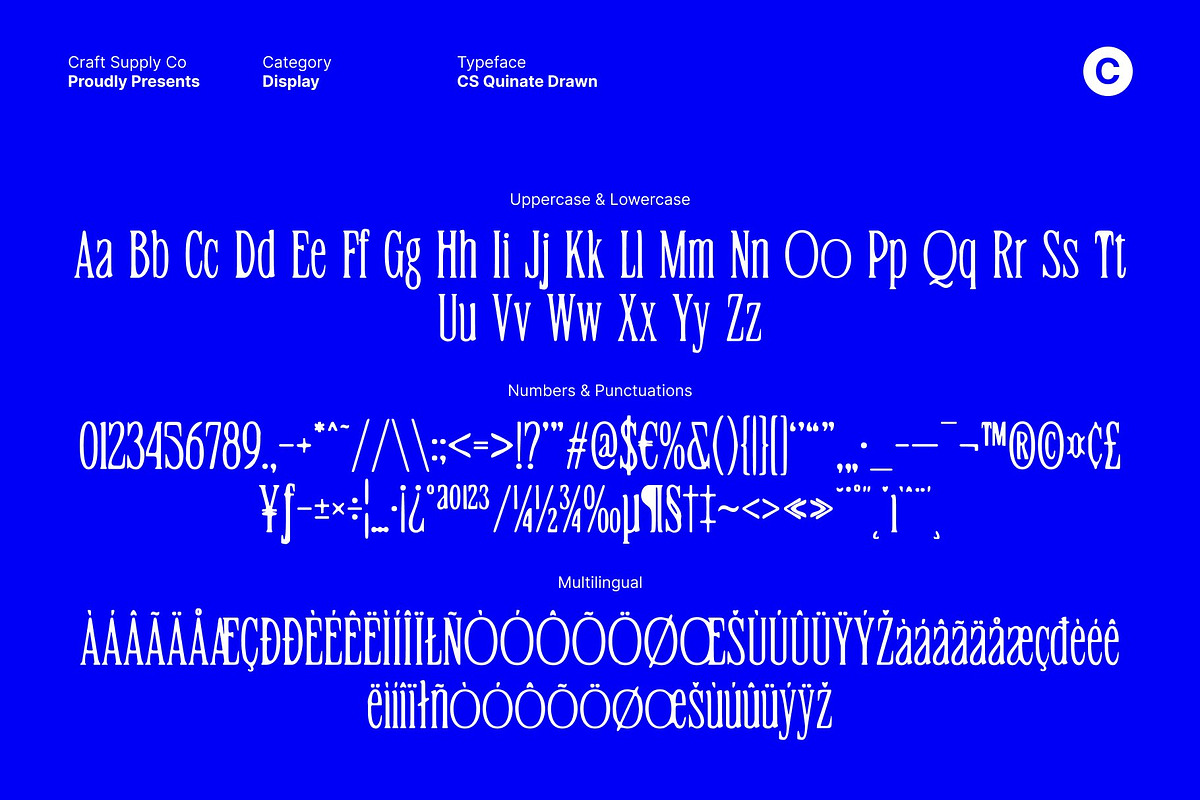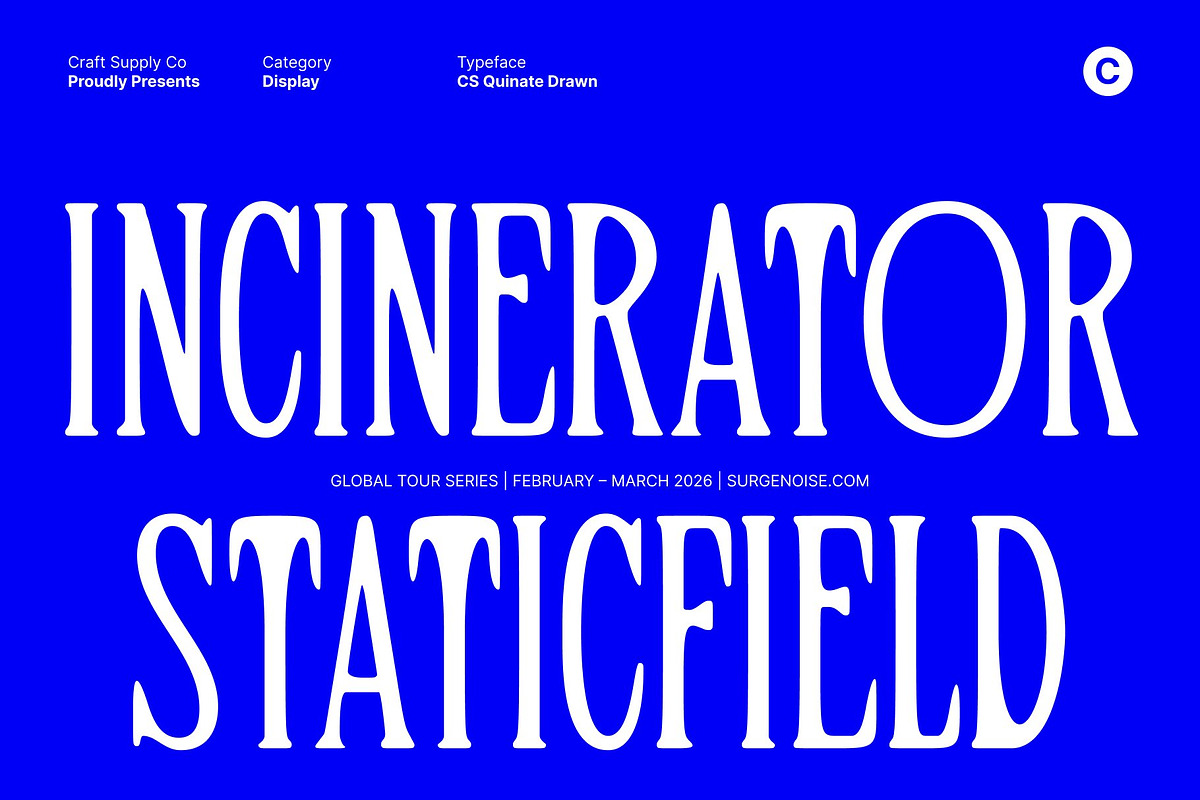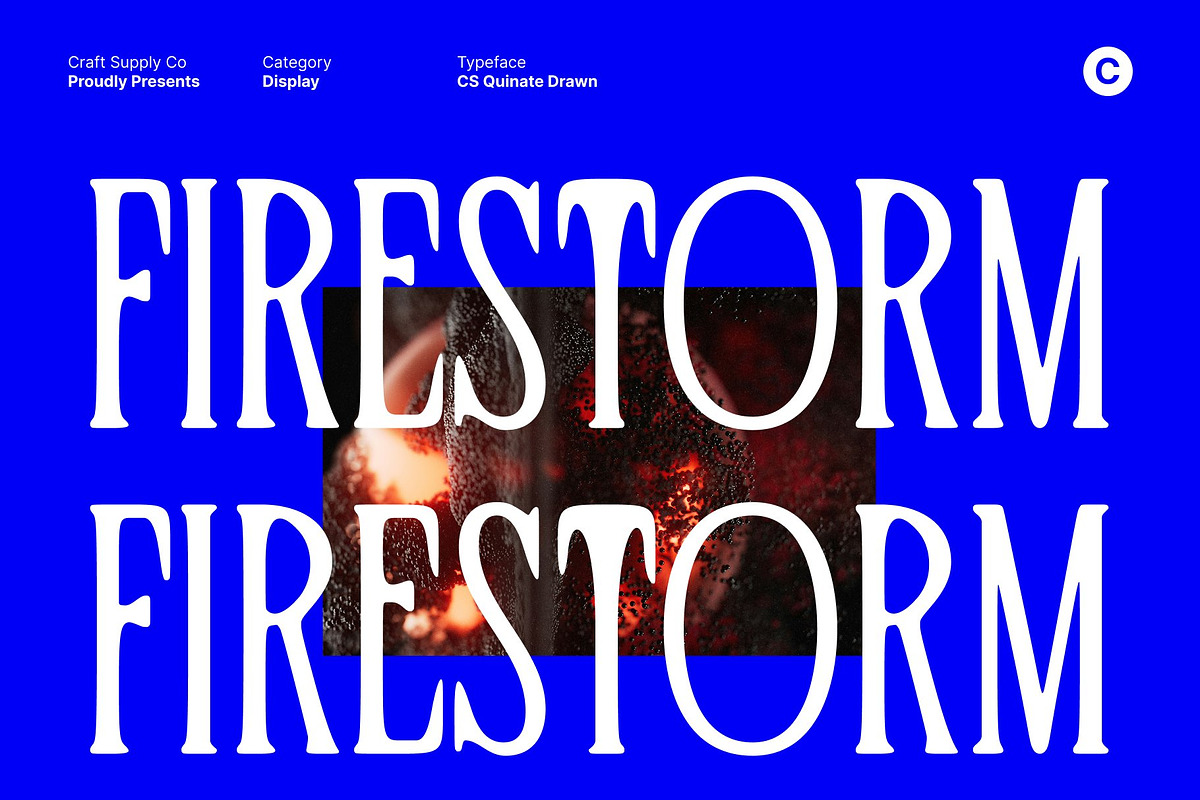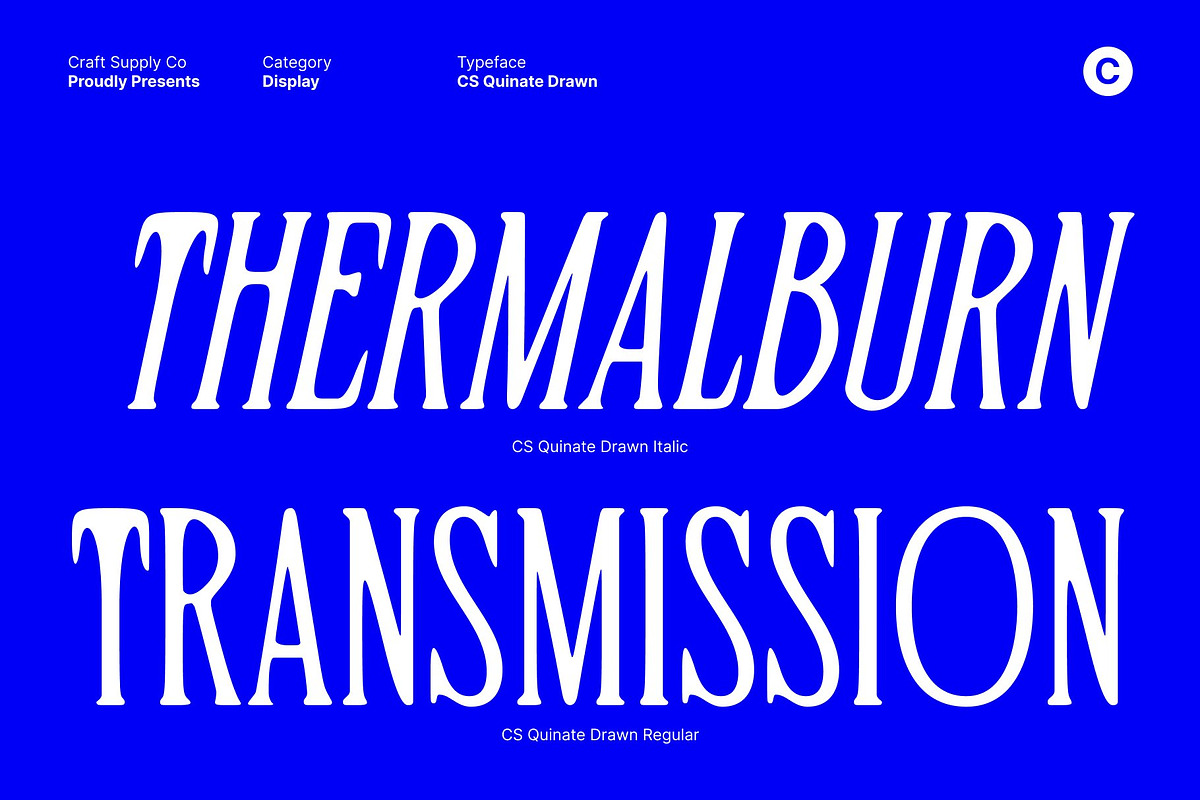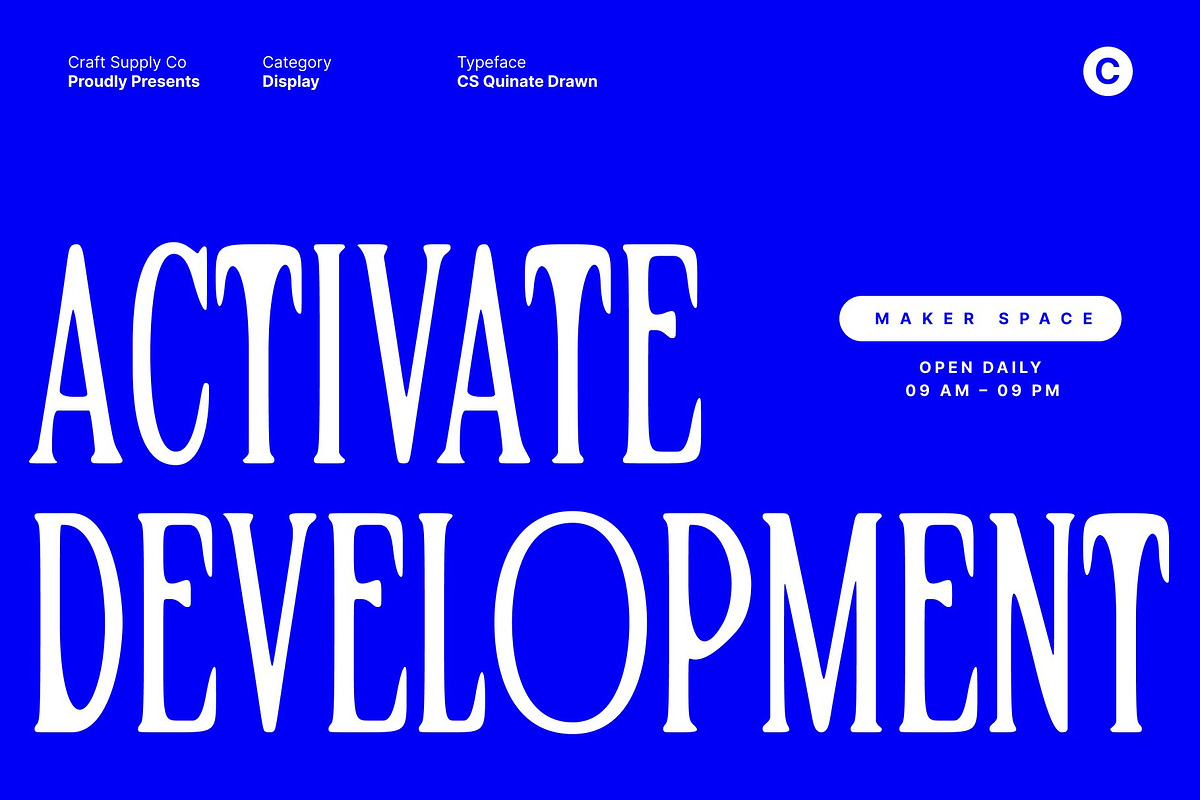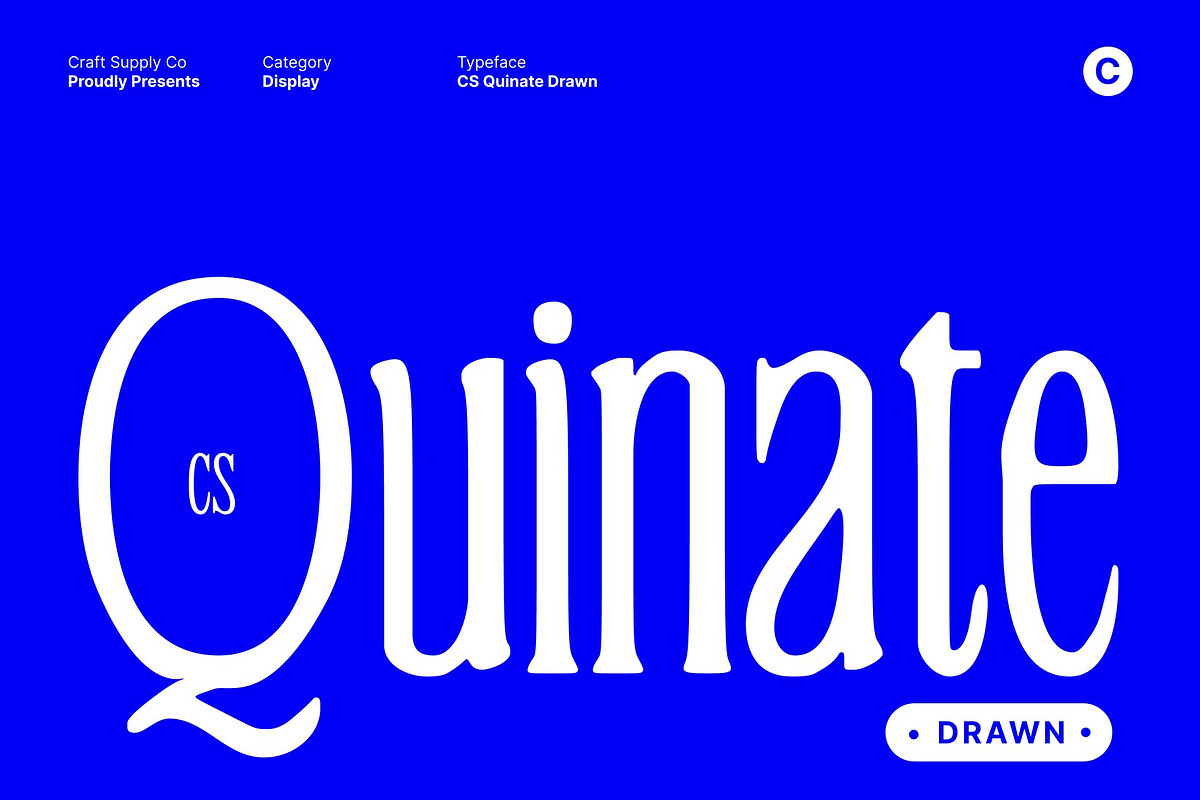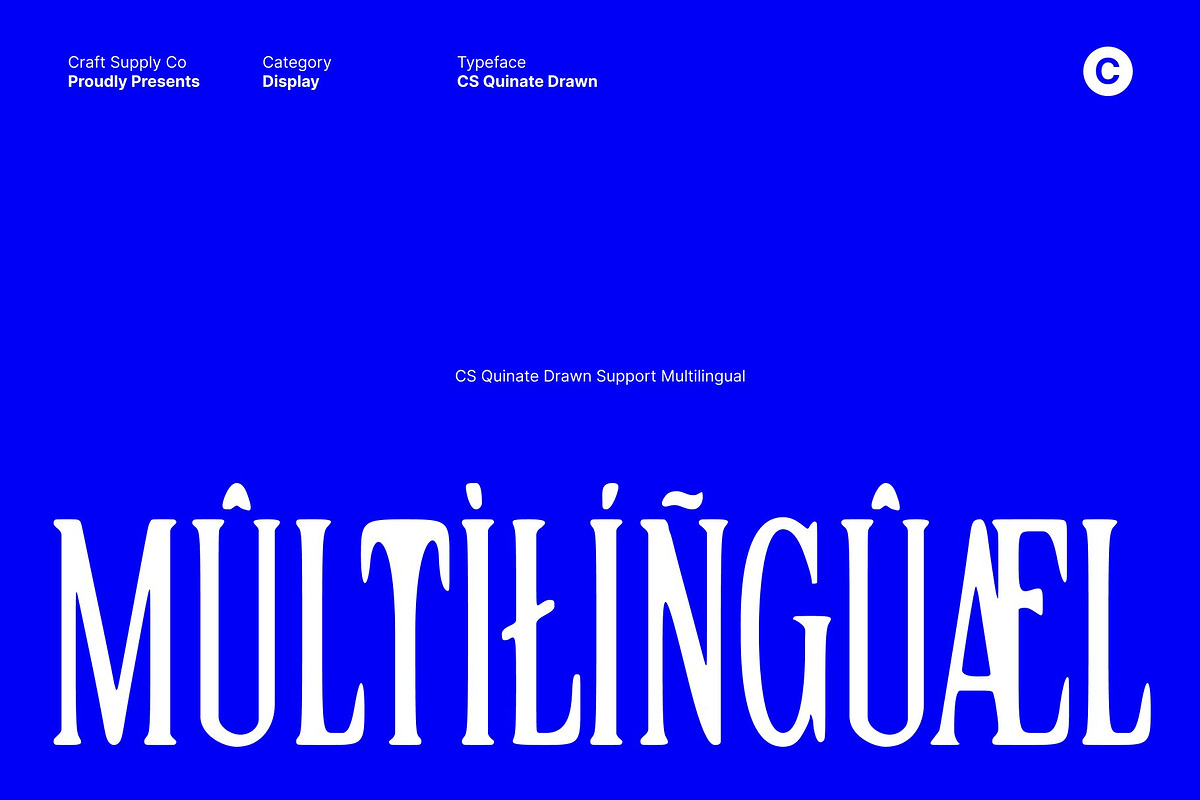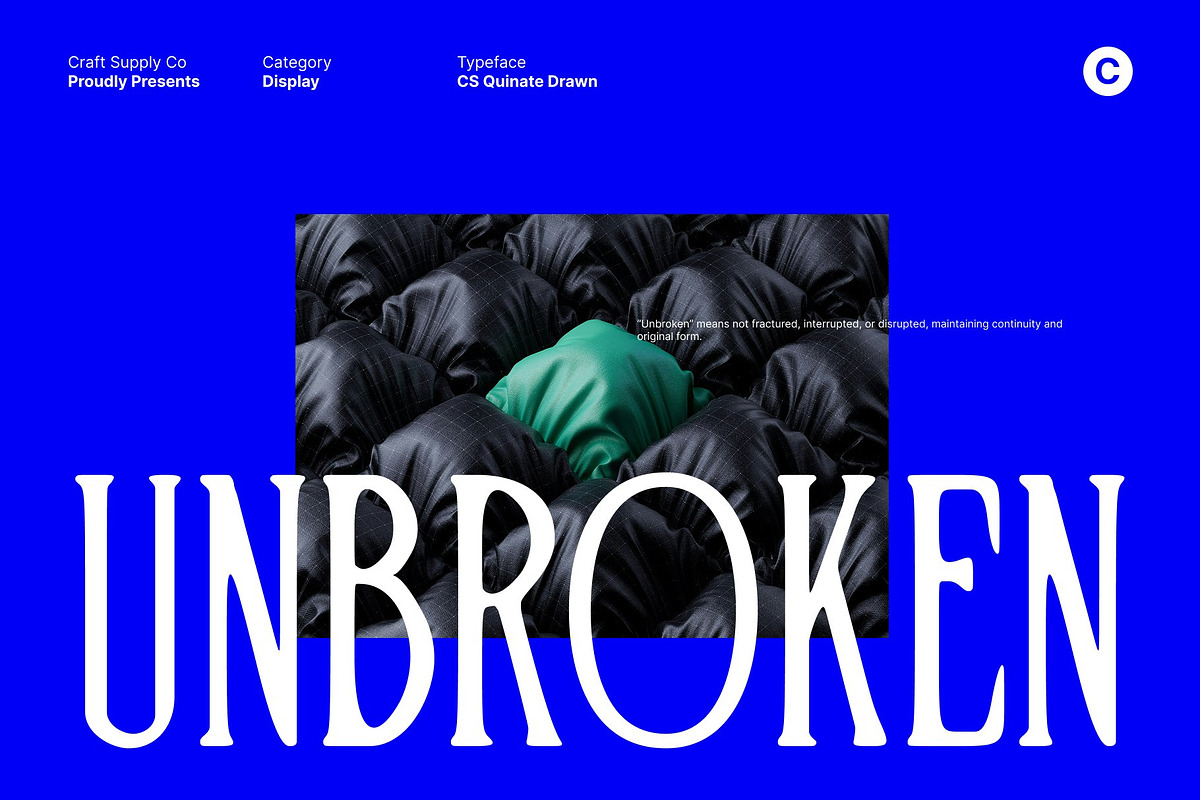
CS Quinate Drawn
CS Quinate Drawn – Condensed Modern Serif with Artistic Soft Texture
Condensed Modern Serif with Contemporary Grace This is a condensed modern serif font defined by long, slim serifs and a graceful contemporary structure. Its tall proportions and refined construction create a sophisticated visual rhythm that feels poised and confident. The narrow form enhances vertical emphasis, making the font especially effective for striking headlines and high-end layouts.
Hand-Drawn Texture for Soft Artistic Expression The drawn handmade texture adds a soft, artistic layer that enriches the font with personality and warmth. Subtle irregularities and gentle stroke variations introduce a natural, human touch, preventing the serif structure from feeling rigid or overly formal. This soft texture enhances the artistic quality of the typeface, allowing it to feel expressive, crafted, and visually engaging while maintaining a clean contemporary feel.
Refined Structure with Creative Personality CS Quinate Drawn blends refinement with artistry through its combination of precise serif forms and organic texture. The long serifs create a sense of luxury and tradition, while the drawn effect introduces modern creativity and softness. This balance makes the font feel timeless yet expressive, suitable for designs that aim to communicate sophistication with a distinctive handcrafted nuance.
Perfect for Luxury Branding and Editorial Design Designed for premium applications, performs beautifully in luxury branding, posters, fashion layouts, and editorial designs. Its condensed proportions, graceful shape, and artistic texture help create strong visual identities that feel refined and memorable.